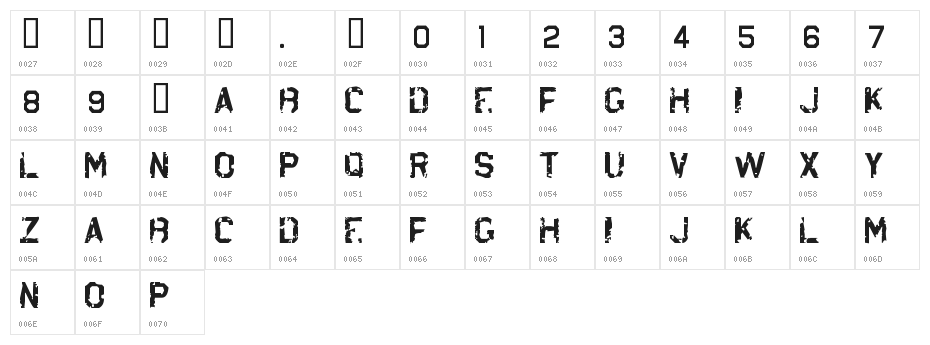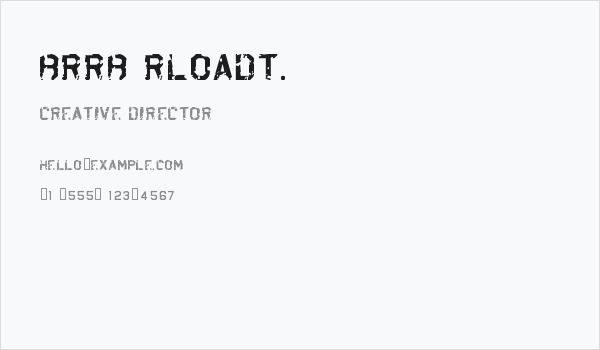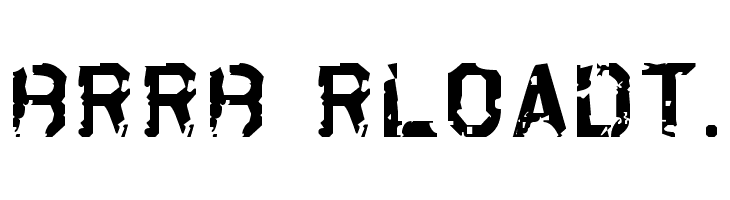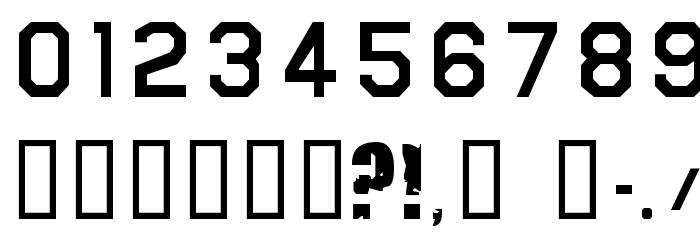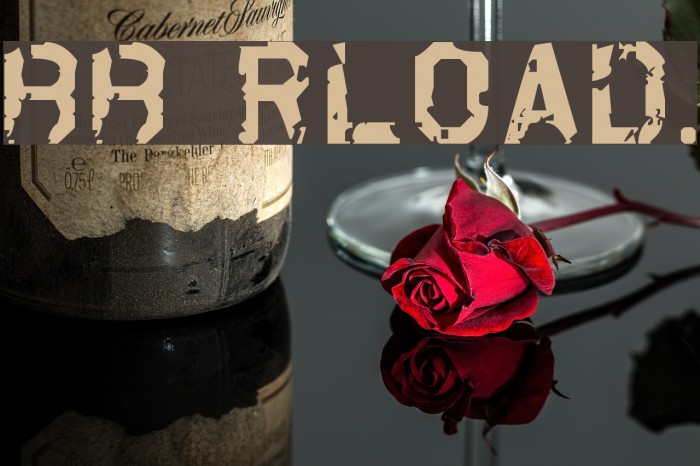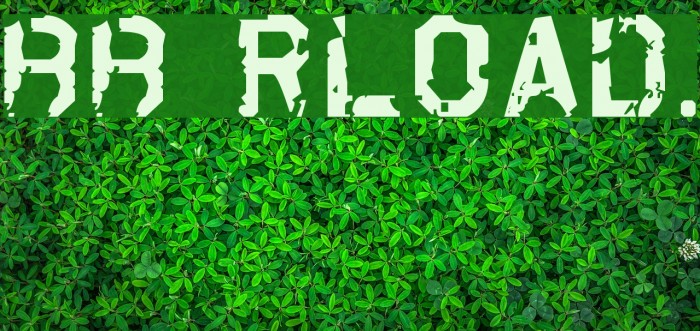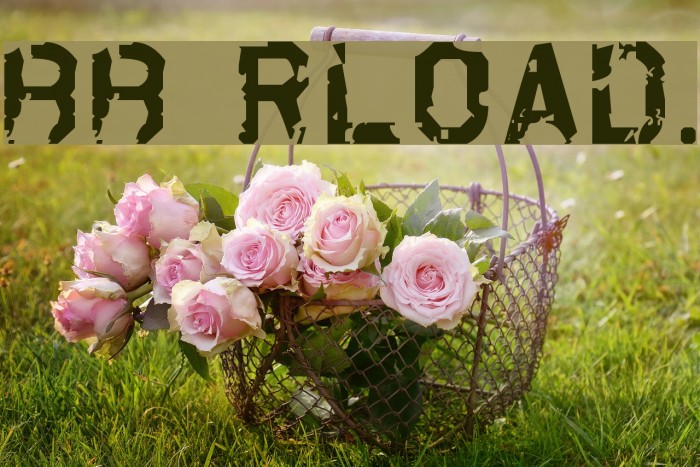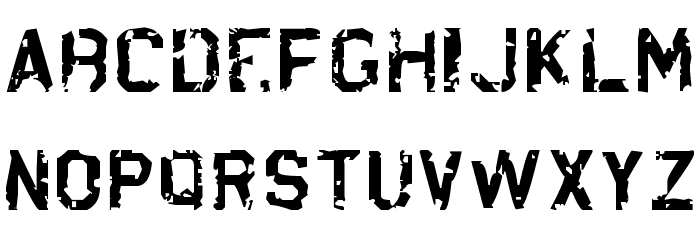
Brrb Rloadt. Font
Brrb Rloadt. Description
This font features a rugged, distressed style with a bold and impactful appearance. Each character appears as if it has been weathered or eroded, giving it a unique, grunge-like texture. The uppercase letters are bold and commanding, while the lowercase letters maintain the same distressed aesthetic. Numbers and special characters follow suit, ensuring a consistent look across all glyphs. The font's design is perfect for projects that require a raw, edgy feel, such as music album covers, posters, or branding for alternative or extreme sports. Its distinctive style makes it stand out, capturing attention with its bold and gritty appearance.
| Proposed Projects | Ideal for music album covers, posters, branding for alternative sports, or any project needing an edgy, raw aesthetic. |